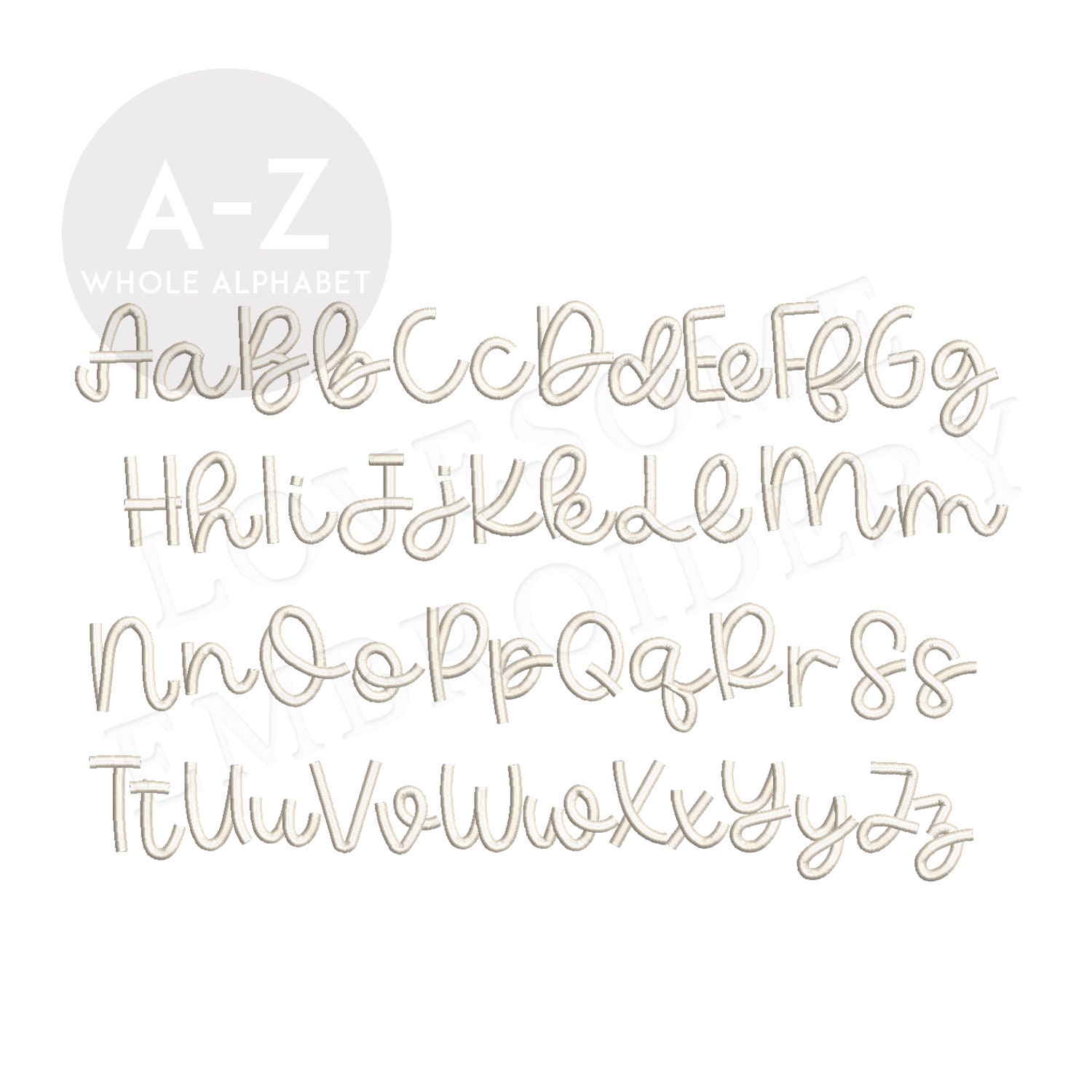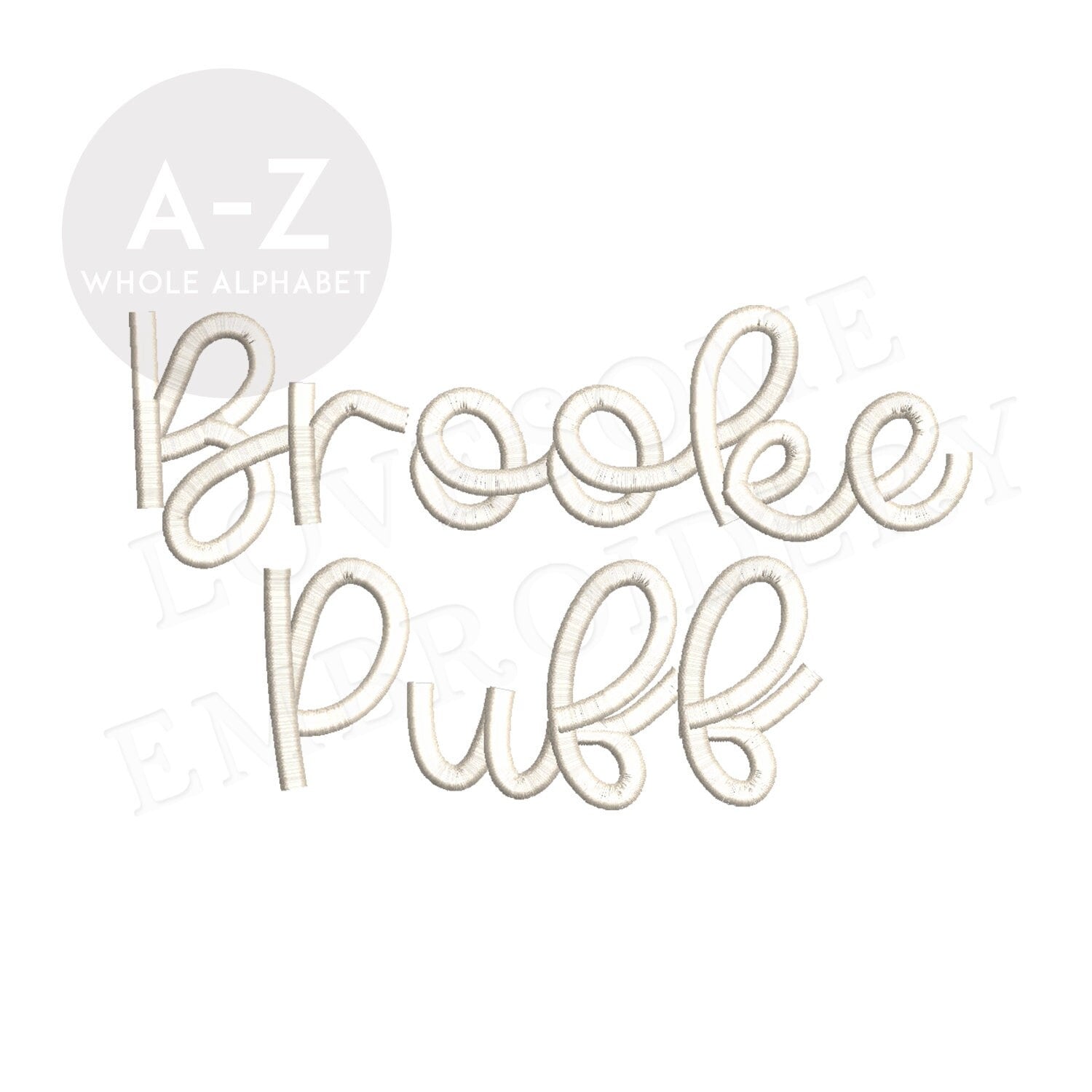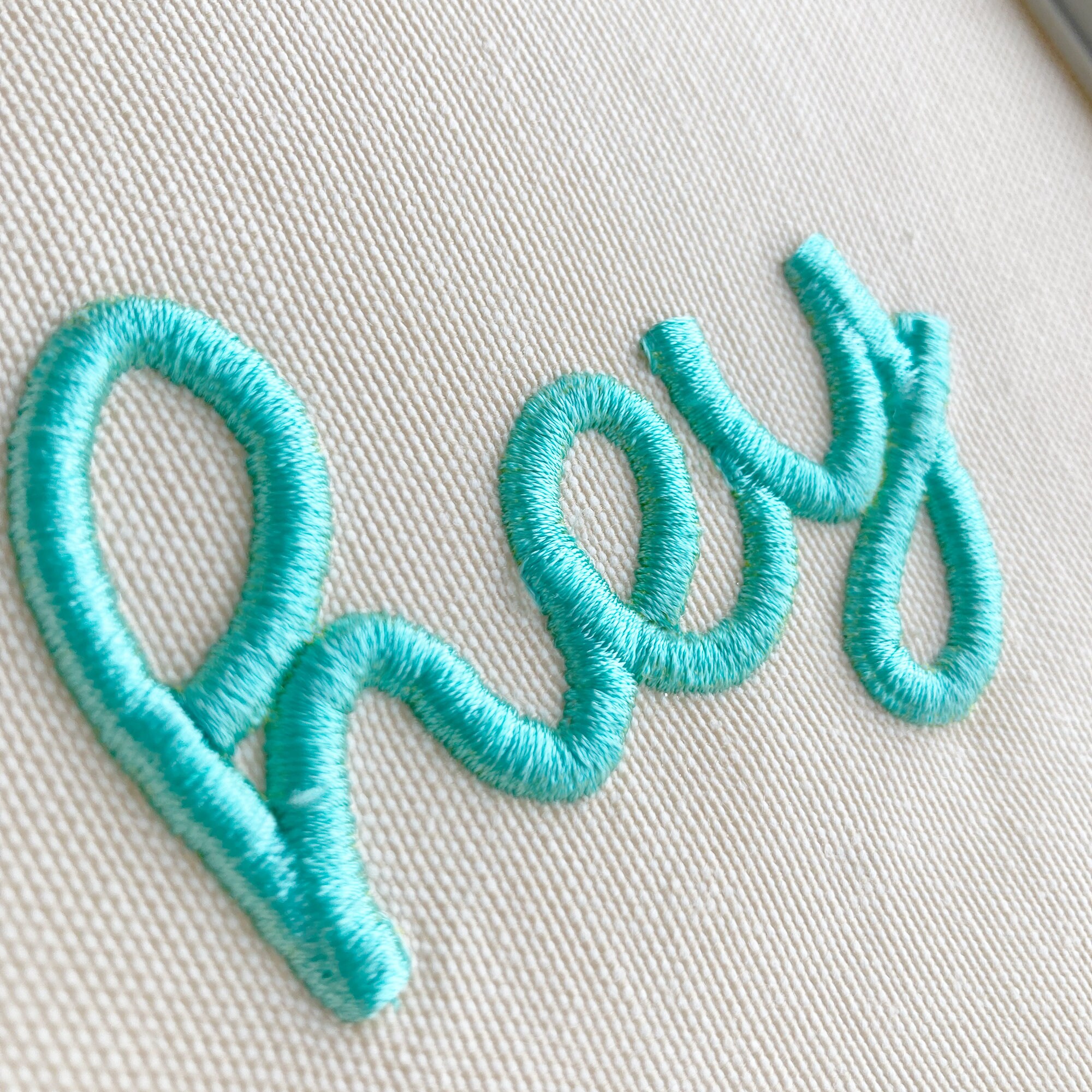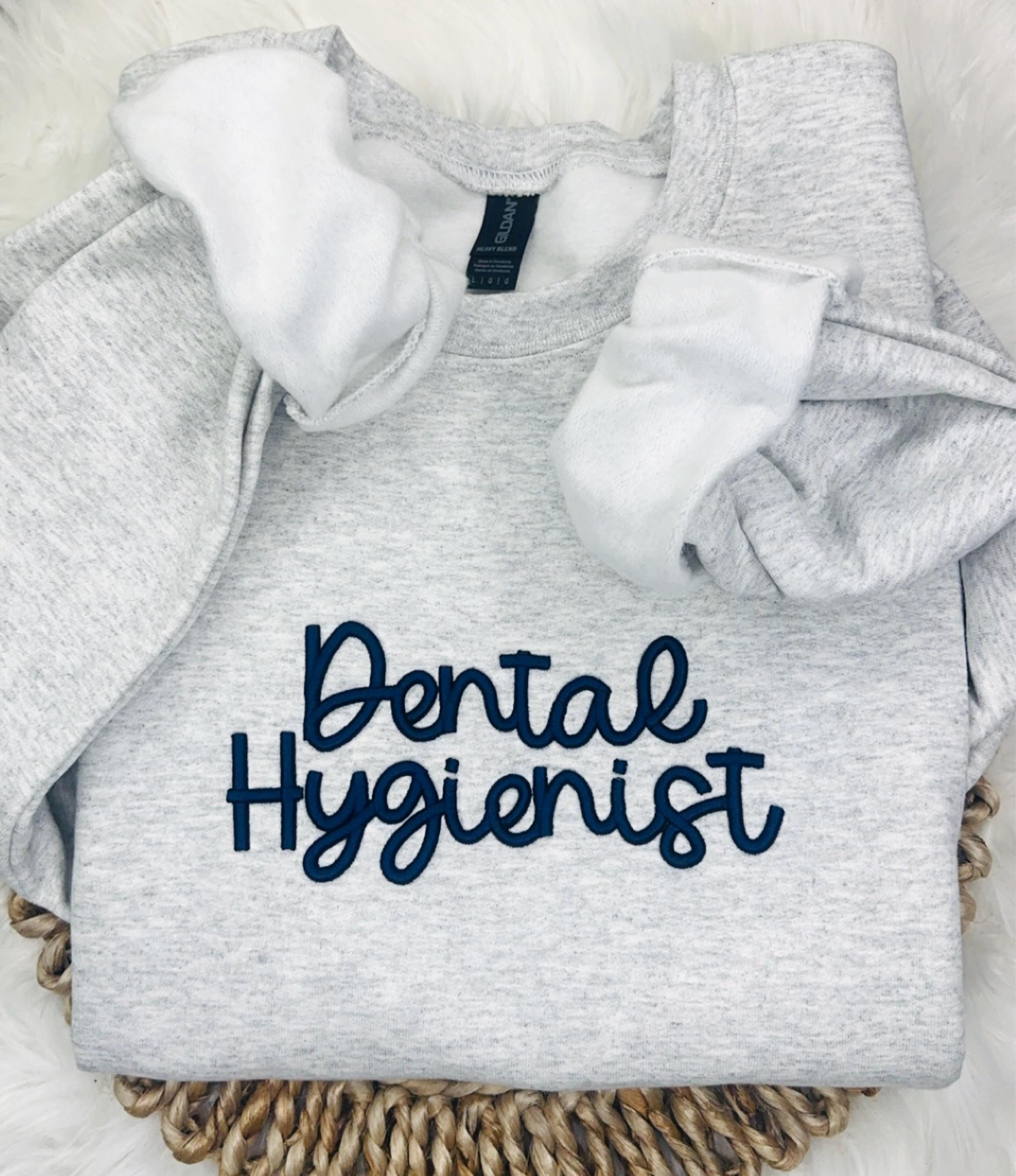
Brooke Puff 2.5inch Script Font A-Z Machine Embroidery Cursive Letters, Puff 3D Foam Embroidery Font Digital Download | Lovesome Design
This listing features a machine embroidery font set for puff stitch embroidery which includes embroidery files of 26 uppercase and 26 lowercase letters in 2.5inch size. (For the whole set, pls see the listing images.)
We recommend to use a puff foam sheet in 3mm thickness for best results.